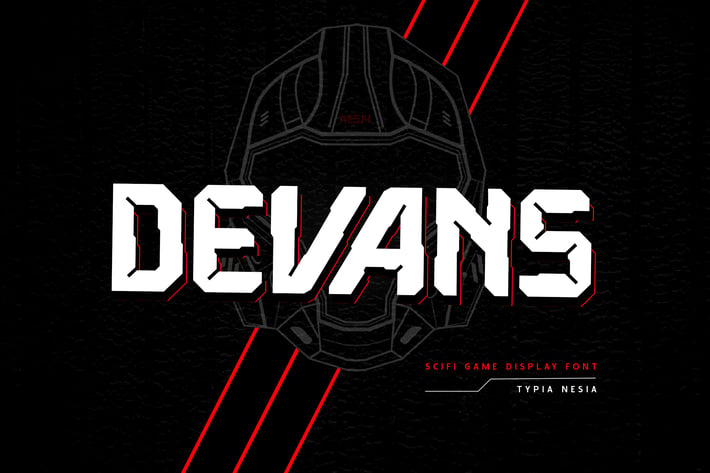
Devans - Scifi Game Font
Devans - Robotic Scifi Space Font - Game Display Sans Serif Font
Devans - Futuristic Game Sans Serif Display Font is perfect for your up coming projects. Such as logo branding, editorial design, stationery design, esport design, 80s retro design, game industry, sport racing, super car brand, music poster, blog design, modern advertising design, card invitation, art quote, home decor, book/cover title, special events and any more.